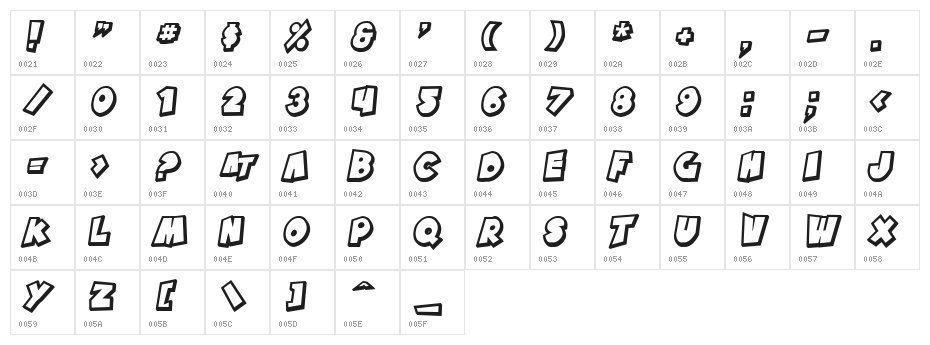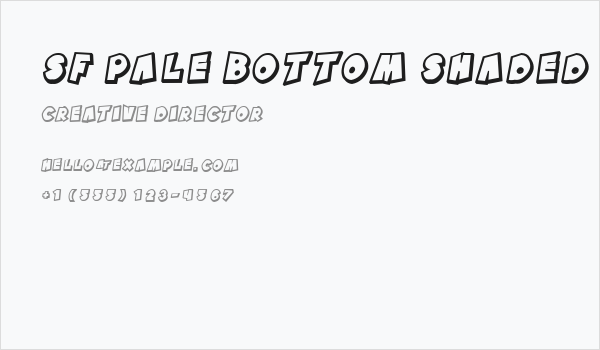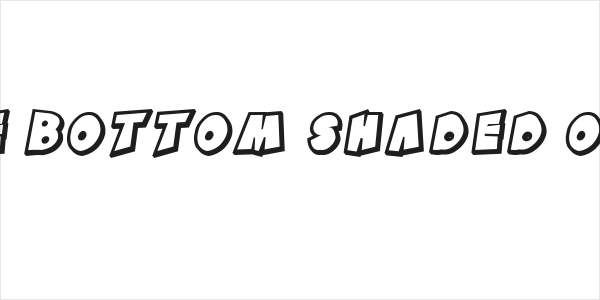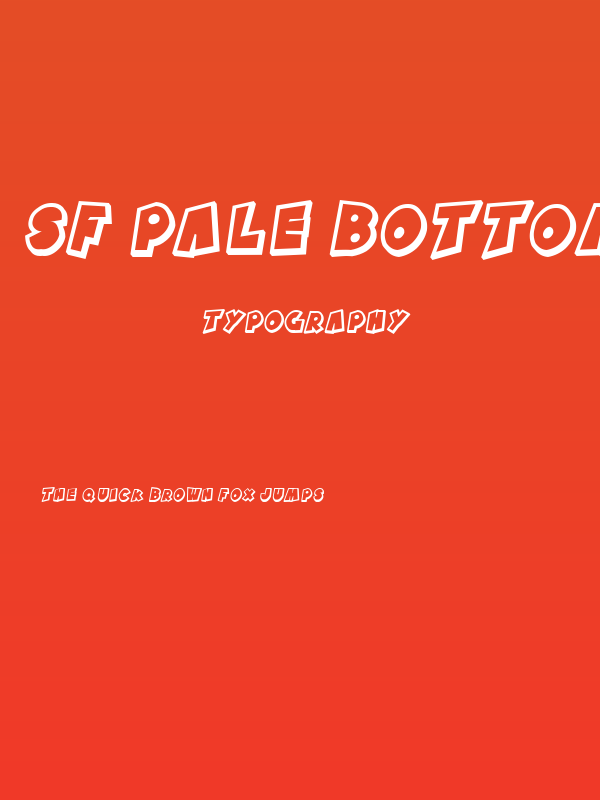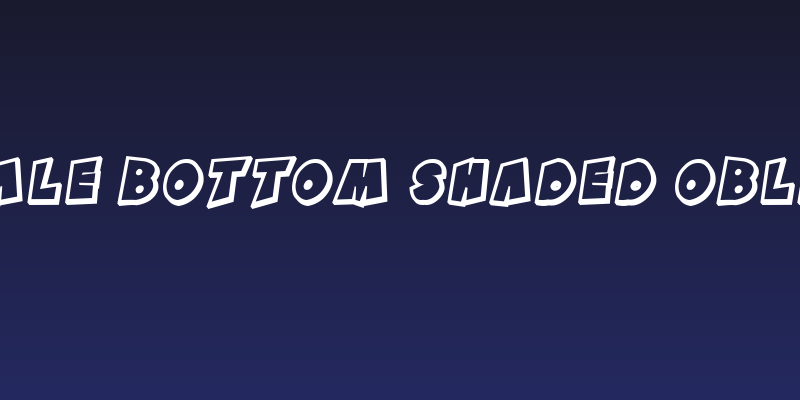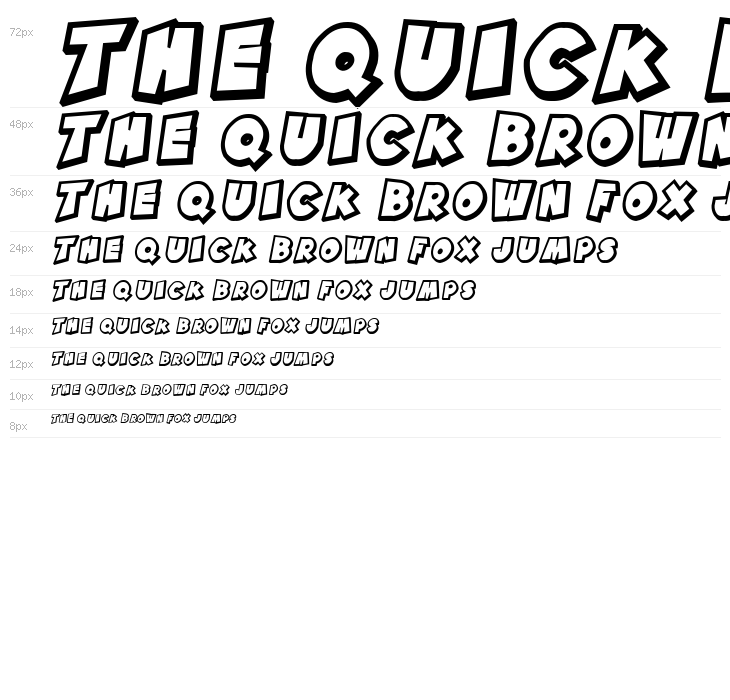
SF Pale Bottom Shaded Oblique Font
SF Pale Bottom Shaded Oblique Description
This font features a bold, playful style with a distinctive oblique orientation. Each character is outlined with a thick black border, giving it a shaded, three-dimensional effect. The letters are blocky and geometric, with a slight tilt that adds a dynamic, energetic feel. The uppercase and lowercase letters maintain a consistent style, while the numbers and special characters complement the overall design. This font's unique appearance makes it stand out, perfect for projects that require a fun and eye-catching typeface.
| Overall Style | Playful, Energetic, Fun |
| Use Case | Headlines, Posters, Branding |
| Proposed Projects | Ideal for comic books, children's posters, playful branding, and eye-catching headlines. |